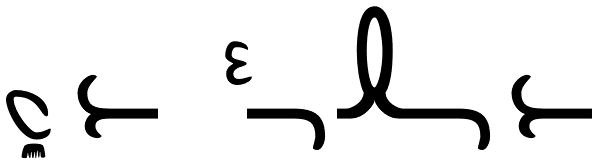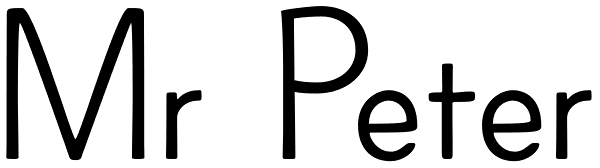
Mr. and Mrs. Peter
Mr. Peter is a warm and friendly handwritten san-serif font which has two weights, Regular and Bold. He also features multi languages, some alternative letters, and 35 ligatures. He is good for an eye catching title, display as well as small text...